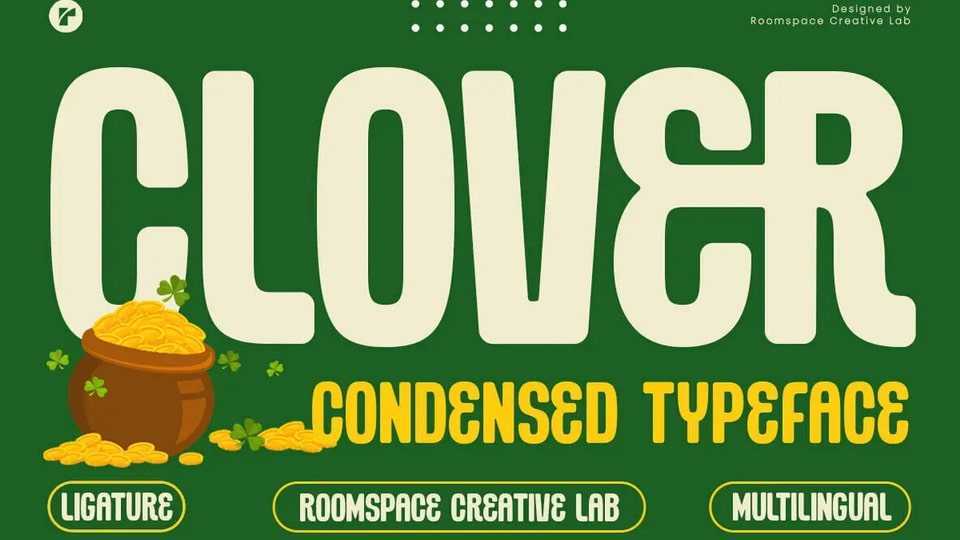
Download Clover Condensed font, a bold and modern sans serif typeface with a strong, blocky, and versatile style, designed for branding, logos, posters, gaming, esports, and editorial design.